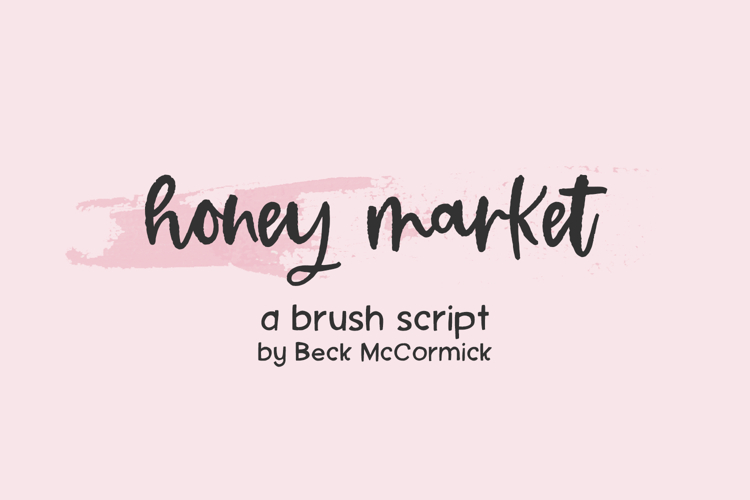
Honey Market Script
Honey Market Script is a brush font. This handwriting font is lightly textured. Honey Market is perfect for logos & branding, greeting cards, painted banners, digital planners, note-taking apps, Canva, Cricut projects, Silhouette projects, designing SVG files, laser cutting projects, & more.
Honey Market includes:
- 13 ligatures - bb, cc, dd, ee, ff, ll, mm, nn, oo, pp, rr, ss, tt